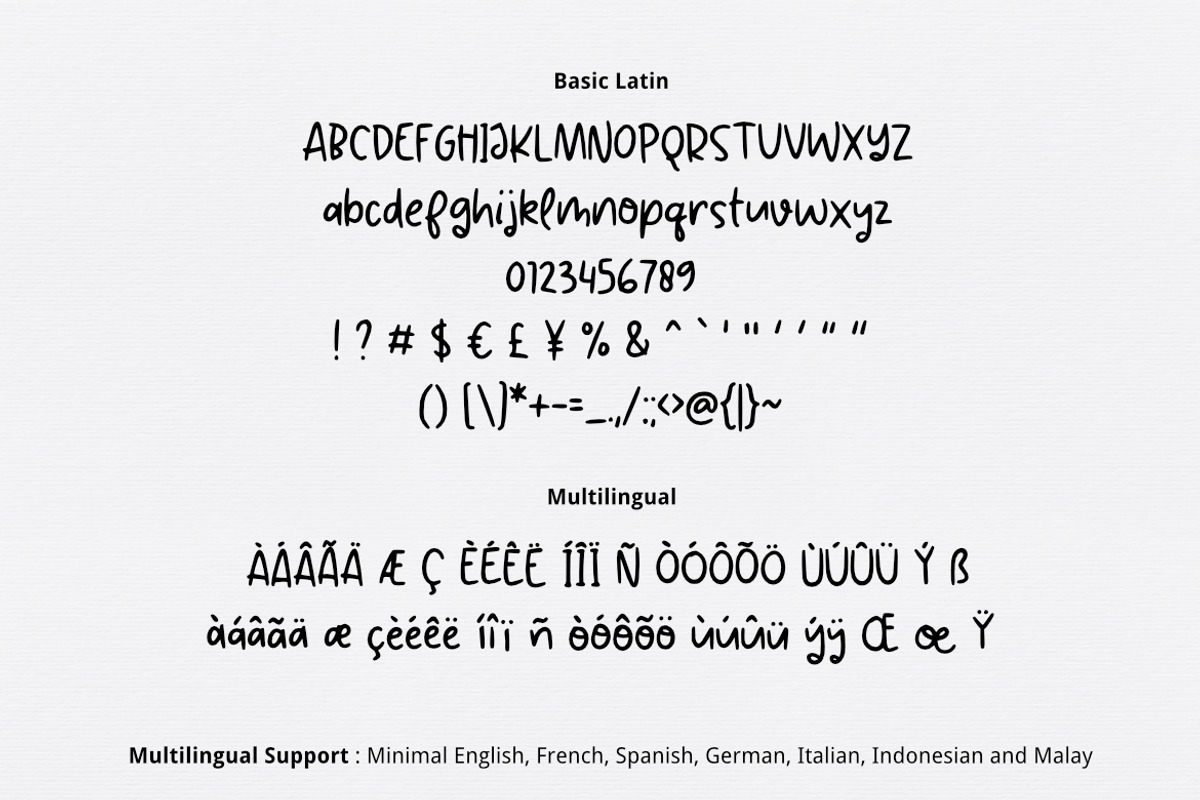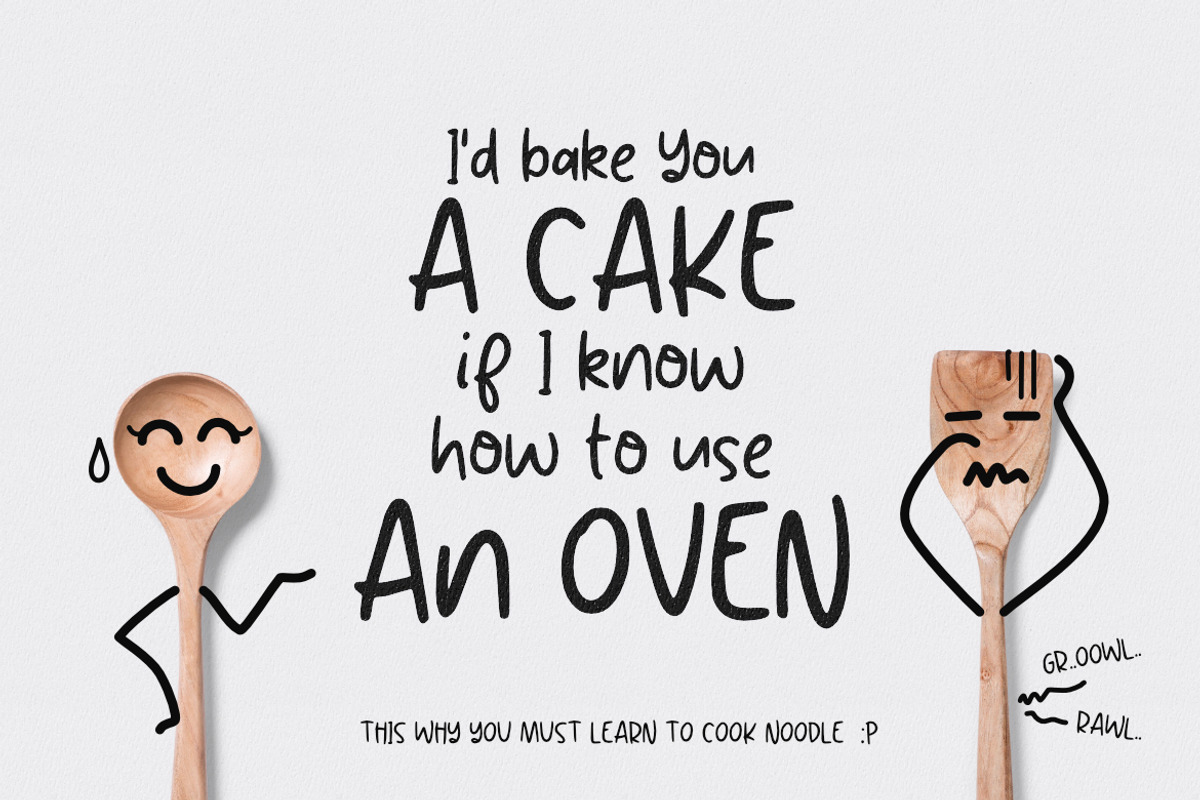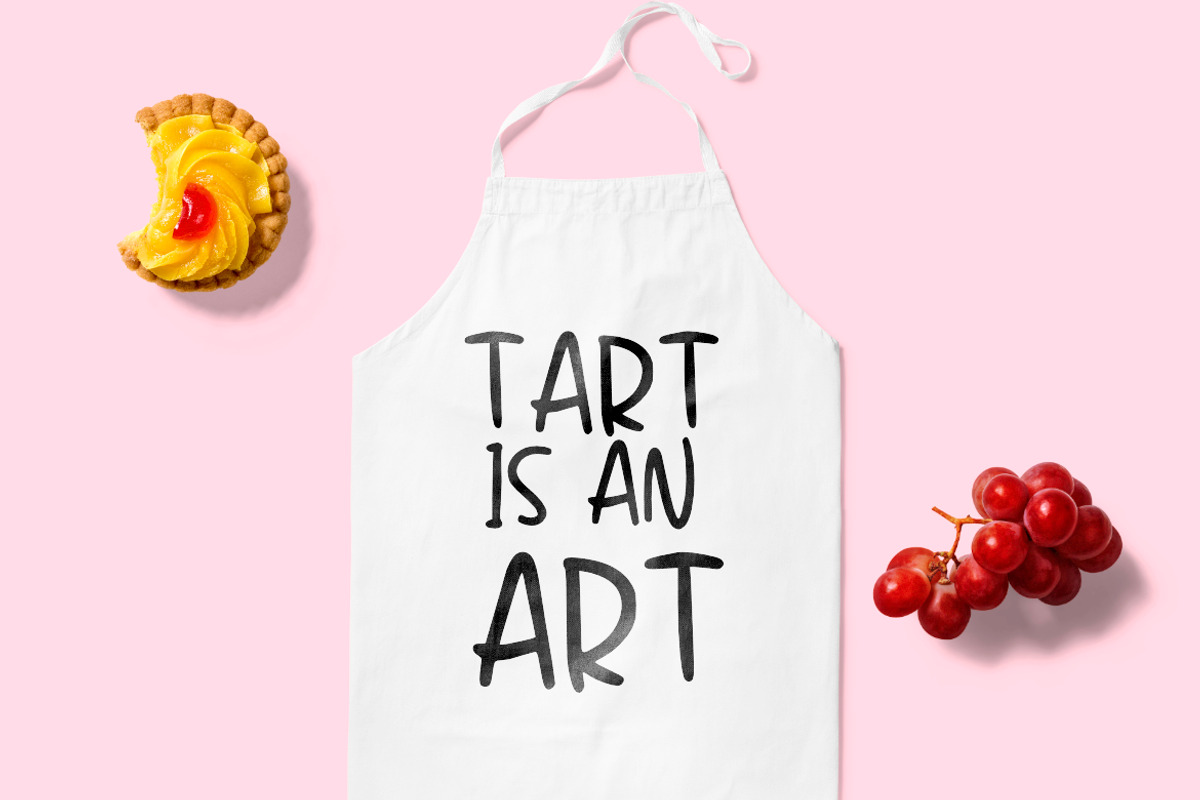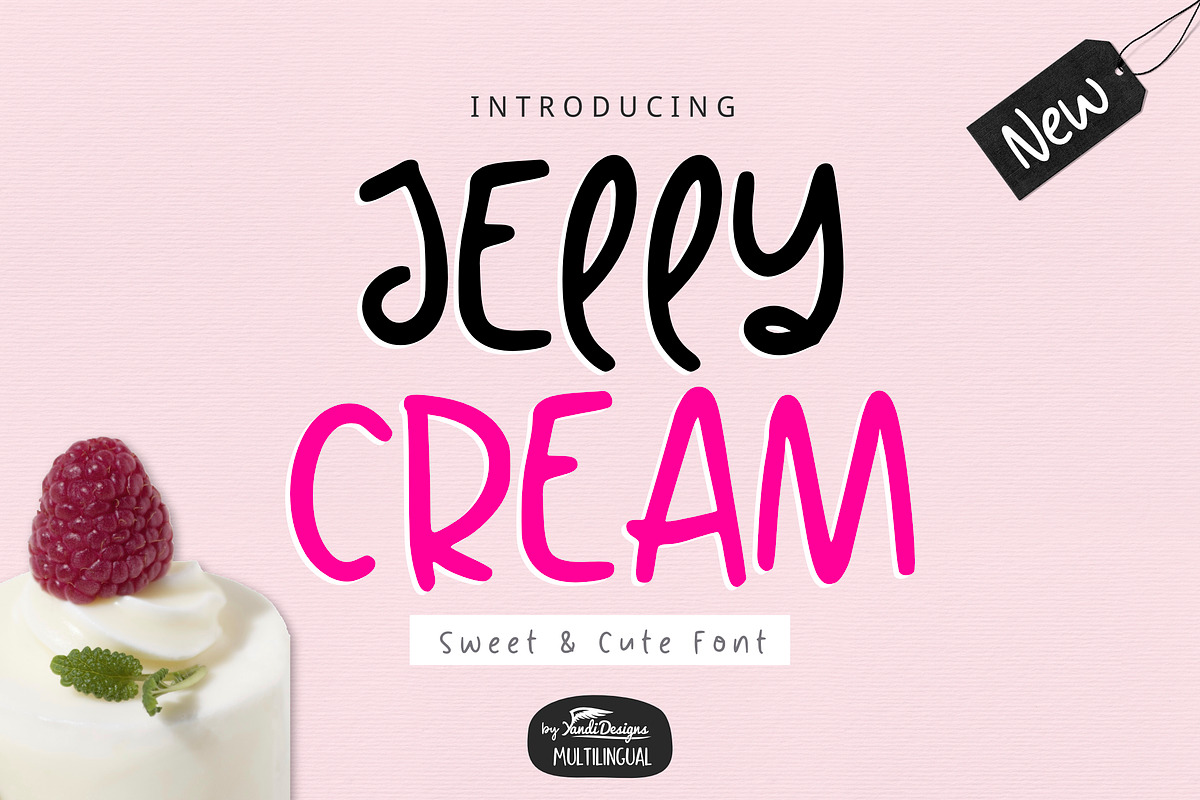
Jelly Cream Font
Sweet and cute handwritten font , suitable for many project, signature , quotes, logo , doodle, heading , title etc.
Basic Latin + Multilingual
Support : Minimal English , French, Spanish, Germany, Italian, Indonesian and Malay.
Why Jelly Cream Font is worth a look
Jelly Cream Font by YandiDesigns fits naturally into Branding, posters, packaging, typography.